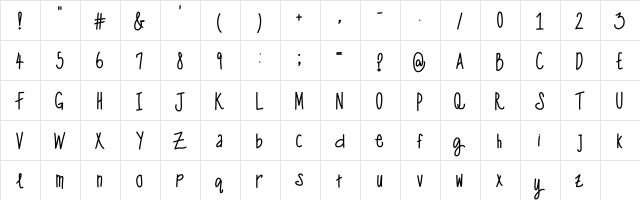
one man wolf pack Medium Font Preview
one man wolf pack Medium
Design Context for one man wolf pack Typeface
one man wolf pack is a composed and adaptable typeface that performs quietly and consistently across a wide range of design contexts.